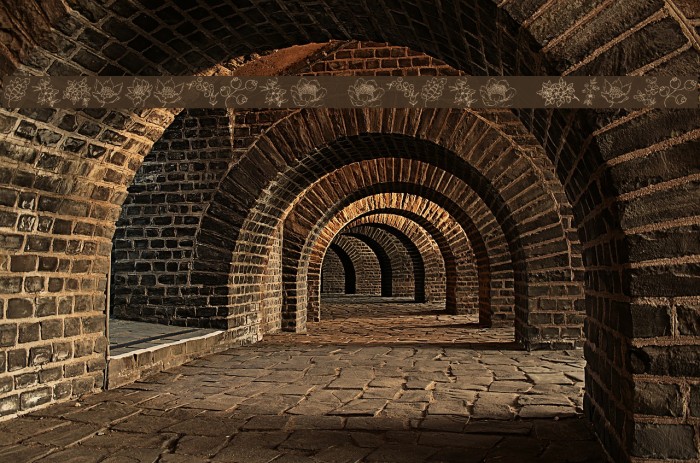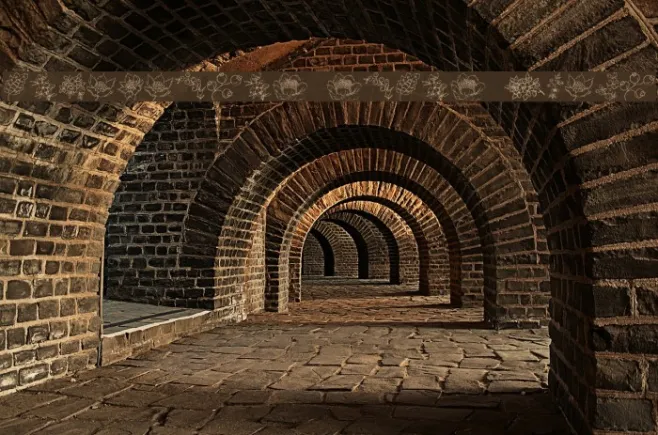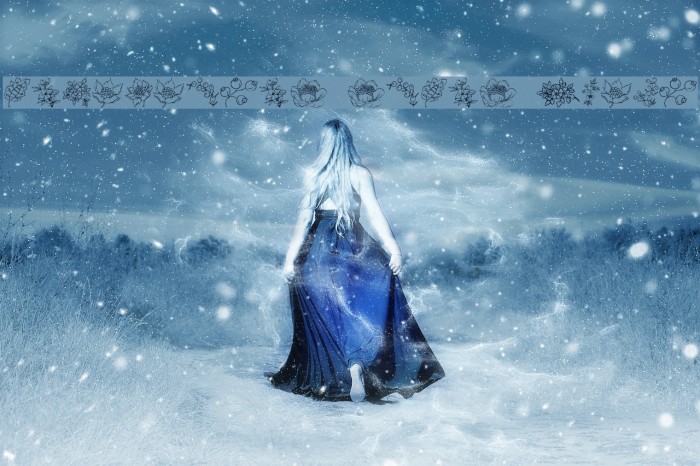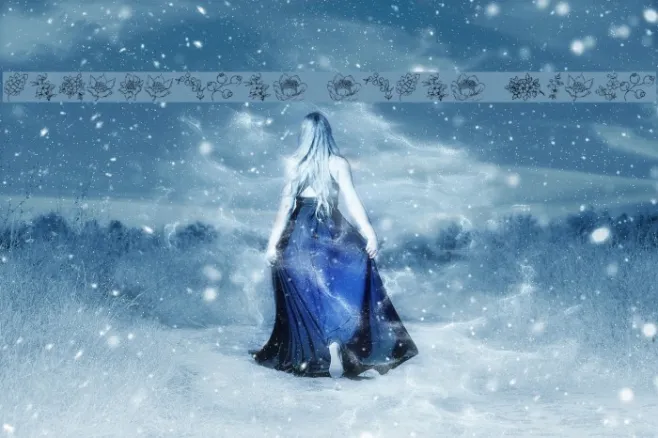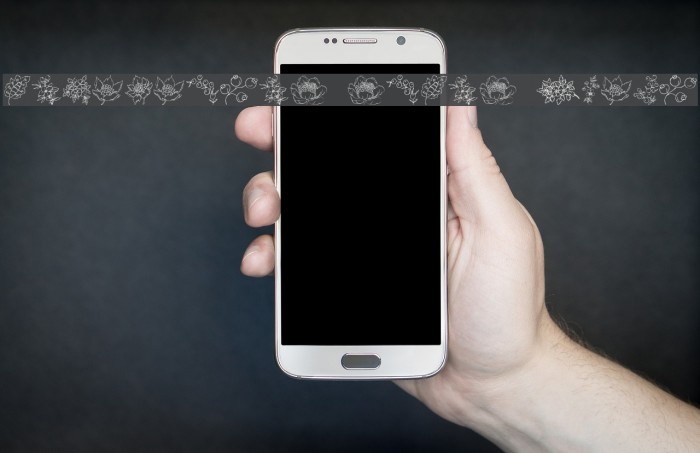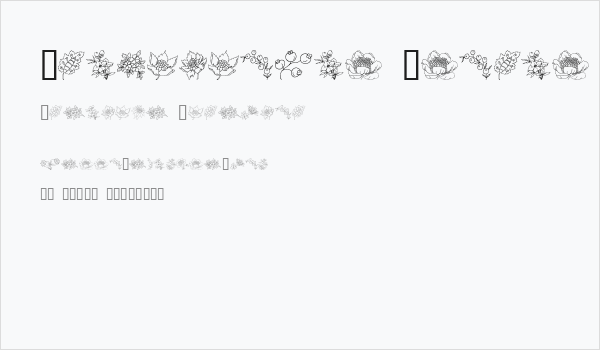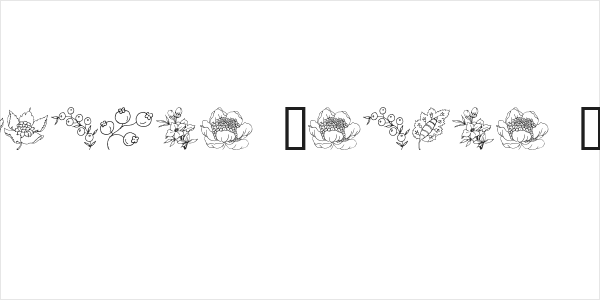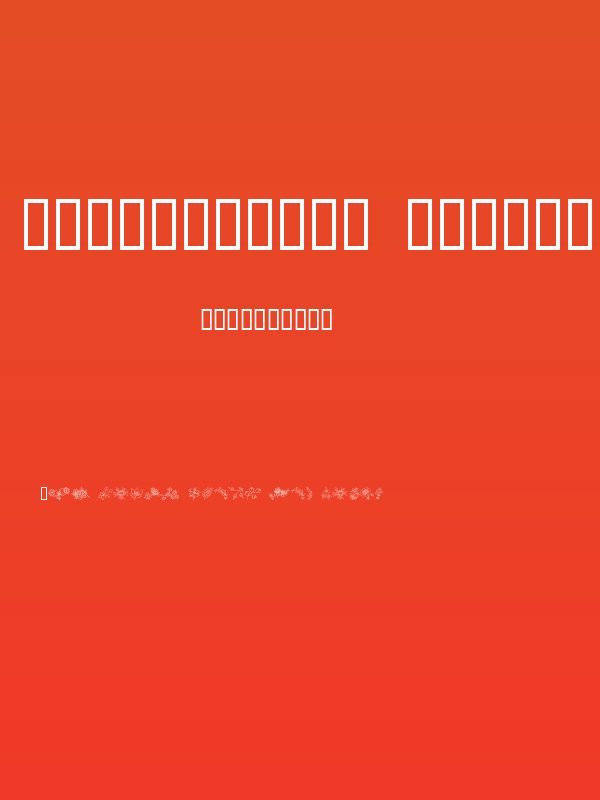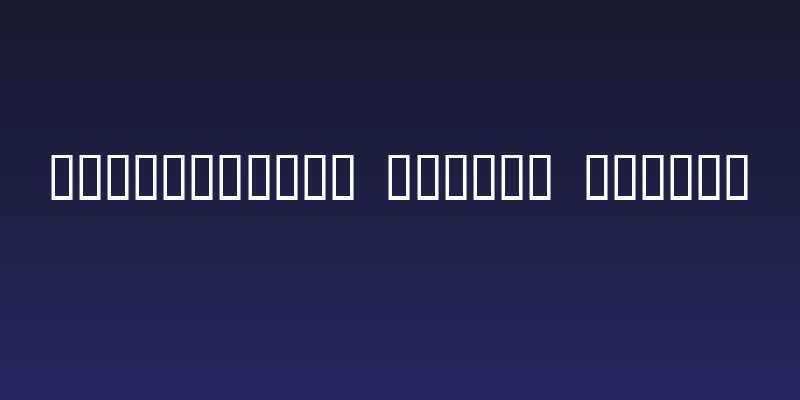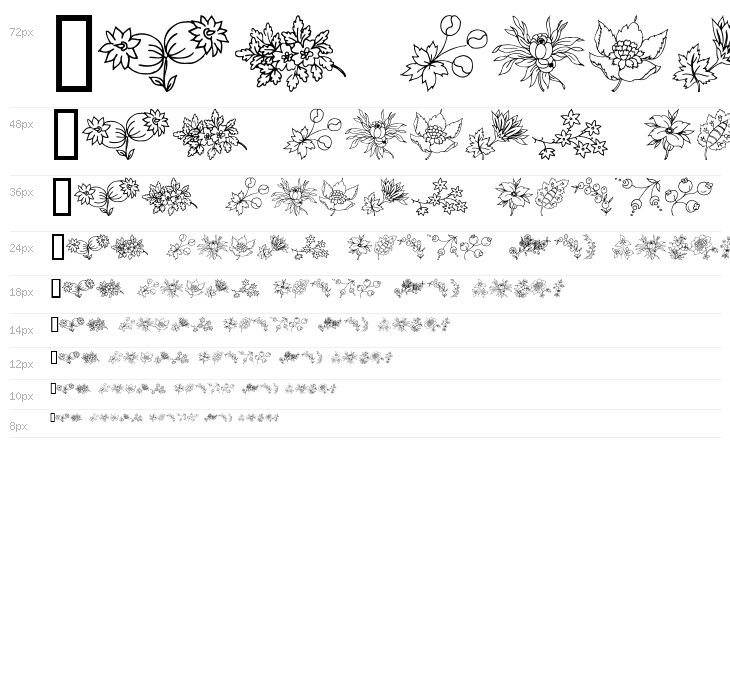
Traditional Floral Design Font
Traditional Floral Design Description
A decorative set of traditional floral illustrations with intricate line work, featuring a variety of flower arrangements and botanical motifs. The designs are detailed and ornamental, suitable for embellishing creative projects.
| Overall Style | Vintage, Decorative |
| Use Case | Decorative elements, Borders, Logos, Invitations |
| Proposed Projects | Wedding invitations, greeting cards, packaging, textile prints, decorative borders, scrapbooking, branding for florists. |